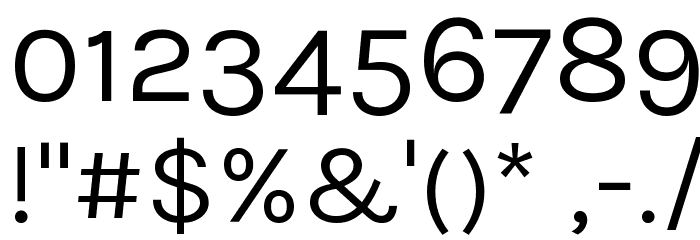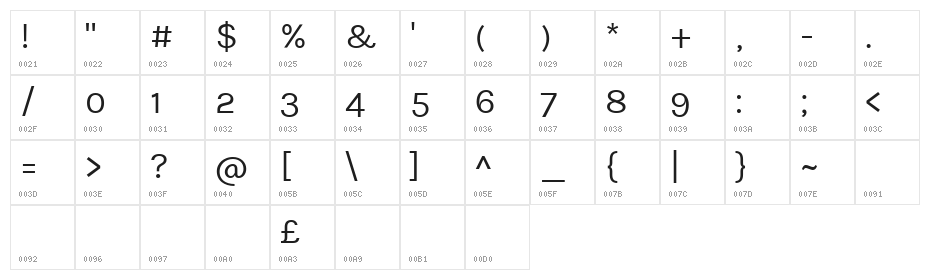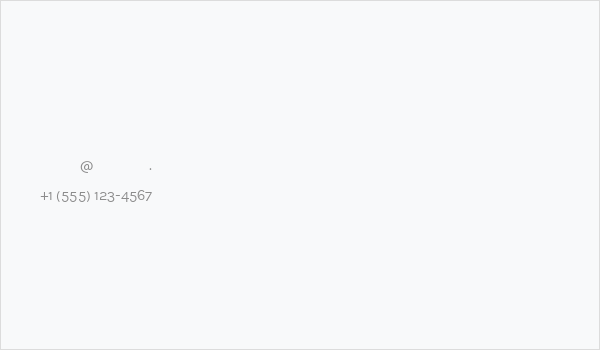
Karla Tamil Font
Karla Tamil Description
This font features a clean and modern sans-serif design, characterized by its simplicity and readability. The characters are well-proportioned with a uniform stroke width, giving it a balanced and harmonious appearance. The rounded edges and open counters enhance its legibility, making it suitable for both digital and print media. The numerals and special characters are designed with the same attention to detail, ensuring consistency across all glyphs. Its straightforward style makes it versatile for various applications, from body text to user interfaces.
| Use Case | Body text, User interfaces, Branding |
| Proposed Projects | Ideal for web design, mobile apps, corporate branding, and editorial content. |